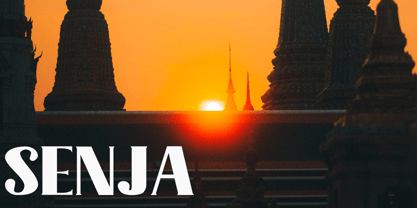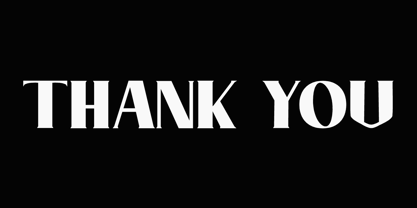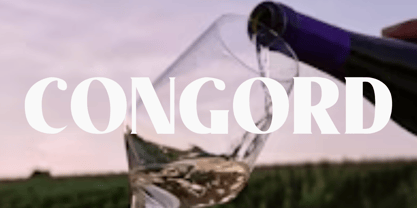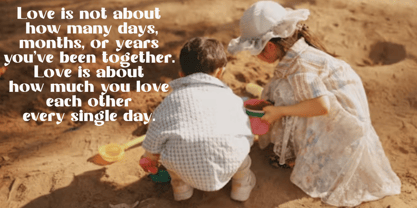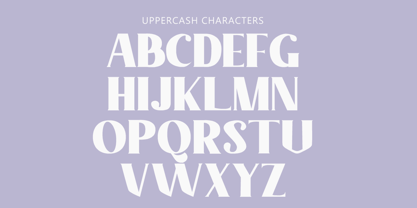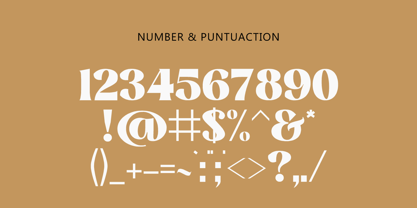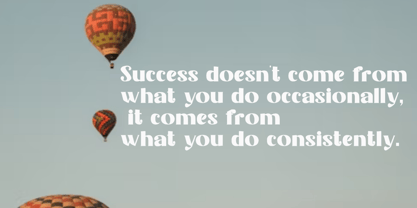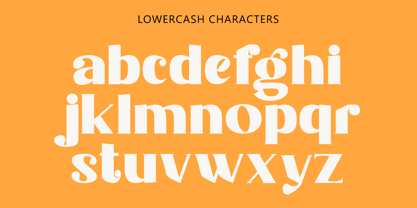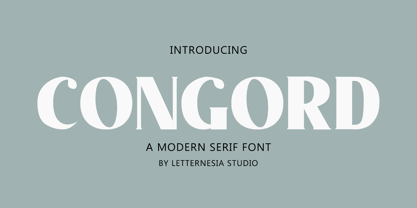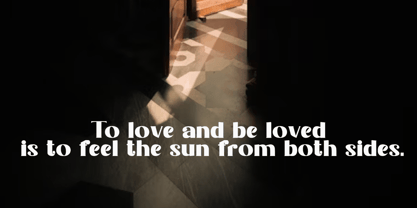
Congord
by Letternesia studio
The Congord Font Family was designed by Ta Siyo and published by Letternesia studio. Congord contains 1 styles. More about this family
CONGORD is a bold typeface crafted to make a statement. Perfectly suited for branding, editorial headlines, posters, packaging, and anything that demands attention, Congord offers a unique blend of geometric strength and modern elegance.
Whether you're launching a new product, building a brand identity, or designing impactful visuals, Congord ensures your message is seen—and remembered.
Designers: Ta Siyo
Foundry: Letternesia studio